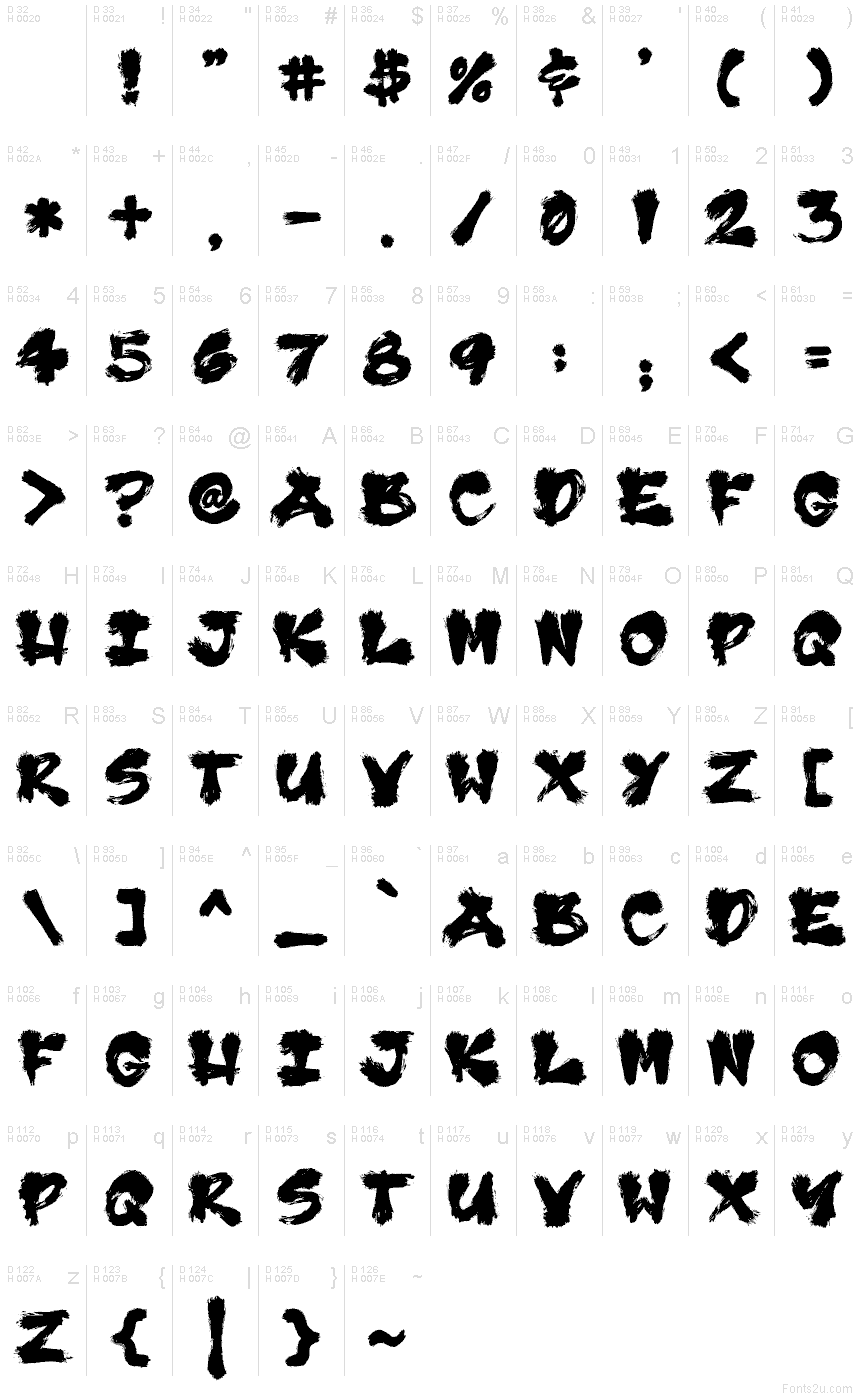
The Catch22 Ultra Brush
The Catch Ultra Brush font by The SegaHolic is a free ultra-bold brush display font. Part of the The Catch family, it lunges off the page with bristly, paint-heavy strokes, ragged edges, and splattery tails that feel ripped straight from a loaded marker. The texture is unapologetically inky—thick pressure surges, quick lifts, and torn fiber endings give it a visceral, hand-made punch that reads loud even at a glance.
Using The Catch Ultra Brush, headlines lock up fast and dramatic, making it a natural fit for streetwear logos, horror posters, concert flyers, game titles, YouTube thumbnails, and album art. Generous spacing helps the chunky forms breathe, while the irregular rhythm adds motion without sacrificing legibility. For balance, pair this free font with a clean condensed sans in the subheads, and keep body copy light to let the brushwork lead.